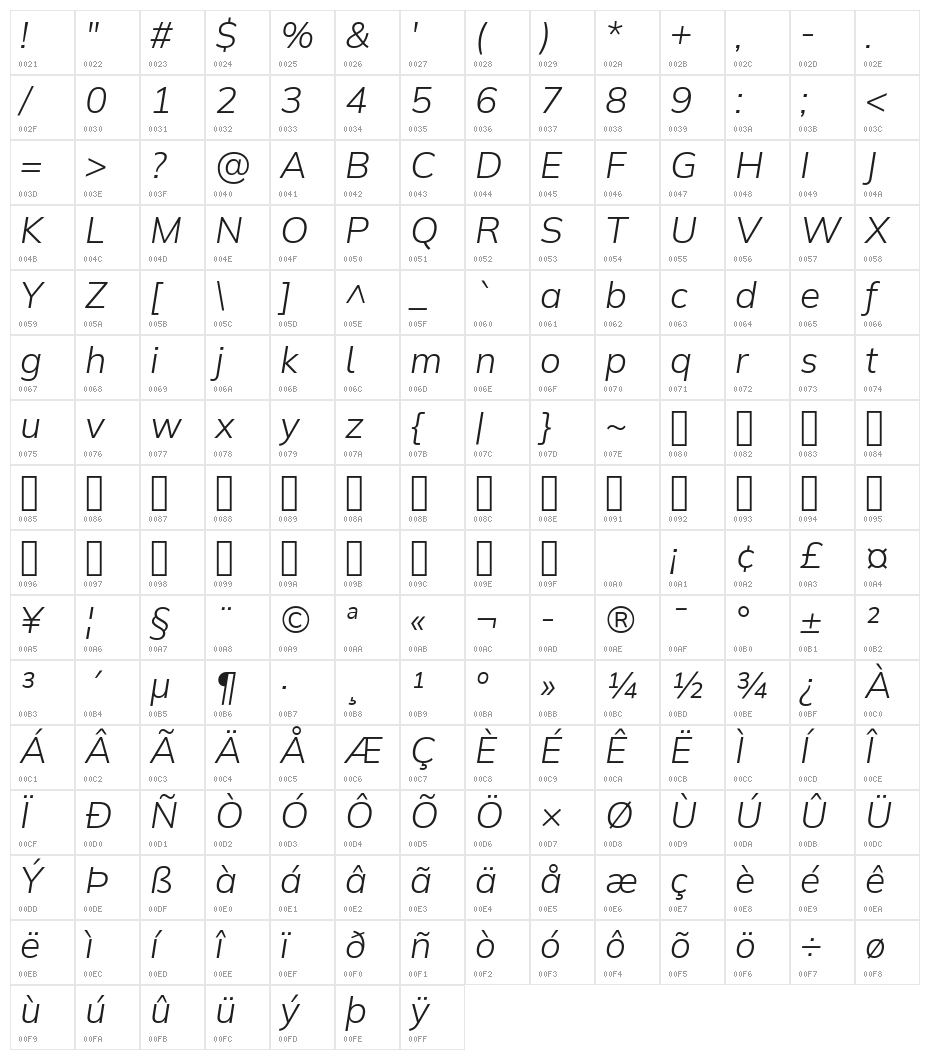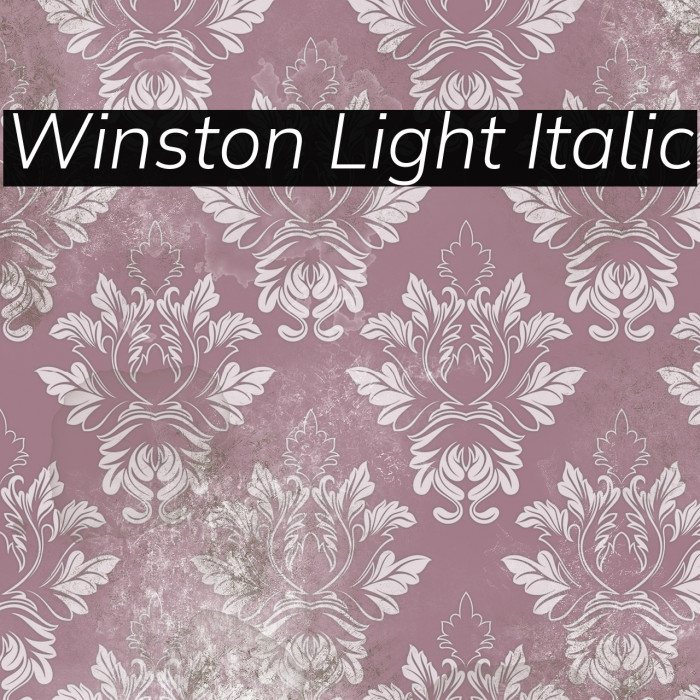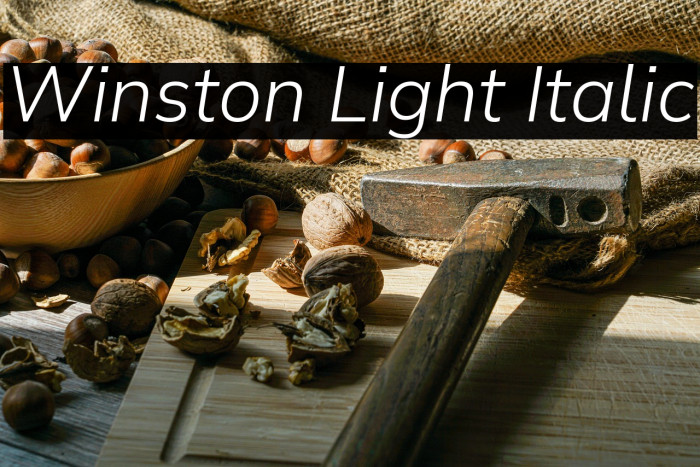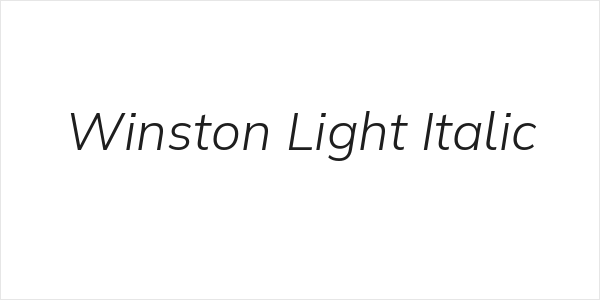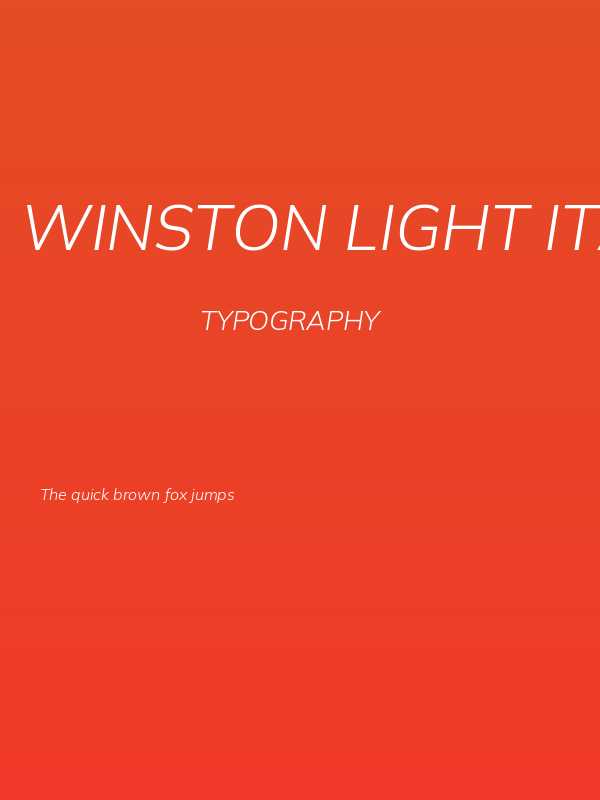
Winston Light Italic Font
Winston Light Italic Description
This font features a sleek and elegant design with a light weight and italic style. The characters are slightly slanted, giving it a dynamic and modern appearance. The strokes are consistent and smooth, providing a clean and professional look. The uppercase letters are tall and slightly narrow, while the lowercase letters maintain a harmonious balance with rounded edges. The numerals are uniform in height and align well with the overall aesthetic. Special characters are designed with clarity and precision, enhancing the font's versatility.
| Proposed Projects | Ideal for fashion magazines, modern branding, elegant invitations, and digital content that requires a sophisticated touch. |